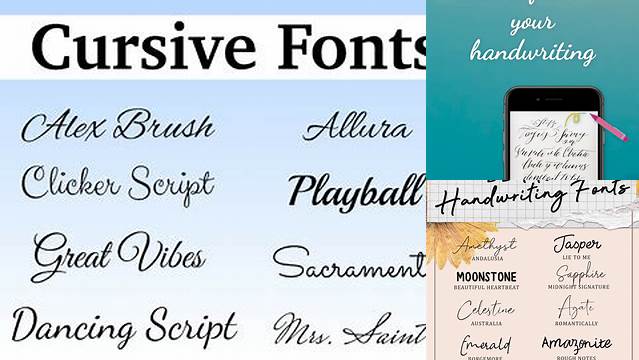
Free Cursive Fonts For IPhone: Download Now!
Hey guys! Ever wanted to spice up your iPhone with some beautiful, flowing cursive fonts? You're in the right place! In this article, we're diving deep into the world of free cursive fonts for iPhones. We'll explore everything from where to find them, how to install them, and even some creative ways to use them. So, grab your iPhone and let's get started!
1. Best Cursive Fonts for iPhone
When it comes to the best cursive fonts for iPhone, you've got a ton of options. But how do you sift through the noise and find the real gems? Well, that's what we're here for! We'll be looking at a variety of fonts, considering factors like readability, style, and overall aesthetic appeal. Think elegant scripts, playful swirls, and everything in between. Whether you're crafting the perfect Instagram story or just want your notes to look a little fancier, the right cursive font can make all the difference. Let's explore some top contenders and see which ones tickle your fancy. Remember, the best font is subjective, so it's all about finding what you love. We'll also touch on resources where you can preview these fonts before downloading, ensuring you get the perfect match for your needs. From classic calligraphy-inspired fonts to modern, edgy scripts, there's a cursive font out there for everyone. So, let's dive into the captivating world of iPhone typography!
4. Using Cursive Fonts in Apps
So, you've got your swanky new cursive fonts installed – awesome! But now, how do you actually use them? This section is all about putting those fonts to work in your favorite apps. We'll explore how to use cursive fonts in various applications, from social media platforms like Instagram and TikTok to productivity tools like Pages and Notes. We'll look at specific app functionalities and how to access your installed fonts within them. Think personalized captions, elegant document headers, and eye-catching social media graphics. We'll also touch on font pairing – how to combine your cursive font with other fonts for a balanced and visually appealing design. It's all about creating a cohesive look that showcases your unique style. We'll even delve into some creative hacks for apps that don't natively support custom fonts, helping you push the boundaries of iPhone typography. Let’s get those creative juices flowing and unleash the power of cursive across your digital world!
5. Cursive Fonts for Instagram
Instagram, the land of visual storytelling! What better place to showcase your amazing cursive fonts? This section is dedicated to all things Instagram and cursive. We'll explore how to use cursive fonts to create captivating captions, Stories, and even profile bios. Think elegant quotes, personalized shout-outs, and a touch of calligraphic charm. We'll dive into specific apps and tools that make it easy to add cursive text to your Instagram content. We’ll also talk about the psychology of fonts – how different cursive styles can evoke different emotions and moods. Want to project sophistication? A classic script might be your go-to. Feeling playful? A whimsical, swirly font could be perfect. We'll help you choose the right cursive font to match your brand and aesthetic. We’ll also cover best practices for readability, ensuring your followers can actually read your message. Let's make your Instagram feed a masterpiece of typography!
6. Cursive Fonts for Notes App
The iPhone's Notes app – it's more than just a digital notepad! It's a place for brainstorming, journaling, and capturing your thoughts. And what better way to personalize your notes than with a beautiful cursive font? In this section, we'll explore how to use cursive fonts in the Notes app to add a touch of elegance and personality. We’ll discuss methods for changing the font system-wide, if possible, or using creative workarounds to incorporate cursive text within your notes. Think handwritten-style headers, stylish bullet points, and an overall more visually appealing note-taking experience. We'll also touch on the practical aspects of using cursive in notes – ensuring readability and choosing fonts that are easy on the eyes for longer writing sessions. We’ll look at how cursive can enhance organization and make your notes feel more uniquely you. Let's transform your digital scribbles into works of art!
7. Cursive Fonts for Social Media
Social media is all about making a statement, and your choice of font plays a huge role in that! This section is your guide to using cursive fonts for social media to create eye-catching posts and profiles. We'll cover various platforms, from Instagram and Twitter to Facebook and TikTok, exploring how to incorporate cursive fonts into your content. We'll discuss font pairing, color palettes, and other design elements that complement cursive typography. Think branded graphics, shareable quotes, and posts that truly stand out from the crowd. We’ll also delve into the nuances of each platform, considering character limits, font display, and audience demographics. We'll help you choose the perfect cursive font to connect with your followers and express your unique voice across the social media landscape. Let's amplify your social media presence with the power of cursive!
8. Elegant Cursive Fonts
Sometimes, you just want a touch of sophistication, right? That's where elegant cursive fonts come in. This section is a curated showcase of the most refined and graceful cursive fonts for your iPhone. Think sweeping strokes, delicate lines, and a timeless appeal. We'll explore fonts inspired by classic calligraphy, perfect for adding a touch of class to invitations, announcements, or any project that calls for a little extra panache. We'll discuss the key characteristics of elegant cursive fonts, from their spacing and letterforms to their overall visual impact. We’ll also provide examples of how to use these fonts effectively, whether it's in branding materials, website design, or personal projects. Let's elevate your typography with the timeless beauty of elegant cursive!
9. Modern Cursive Fonts
Cursive doesn't always have to be traditional! This section is all about modern cursive fonts – fresh, contemporary takes on the classic script style. Think bold lines, unique letterforms, and a touch of edginess. We'll explore fonts that blend the fluidity of cursive with a modern aesthetic, perfect for adding a touch of personality to your designs. We'll discuss how to use modern cursive fonts in logos, website headers, and other design elements where you want to make a statement. We’ll also cover font pairing, suggesting complementary fonts that work well with modern cursive styles. Let's push the boundaries of typography and explore the exciting world of contemporary cursive!
10. Calligraphy Fonts for iPhone
Want to capture the artistry of hand-lettering on your iPhone? This section is your guide to calligraphy fonts for iPhone. We'll explore fonts that mimic the beautiful strokes of traditional calligraphy, from elegant Copperplate to bold Spencerian. We'll discuss the history and nuances of calligraphy, and how these styles translate to the digital realm. We'll also cover how to use calligraphy fonts to add a touch of artistry to your projects, whether it's creating custom invitations or designing stunning social media graphics. We’ll provide tips on choosing the right calligraphy font for your needs, considering factors like readability and overall aesthetic. Let's bring the beauty of calligraphy to your fingertips!
11. Script Fonts for iPhone
Script fonts – they're the broader family that cursive belongs to! This section expands our horizons, exploring the diverse world of script fonts for iPhone. We'll look at different script styles, from formal scripts to casual brush scripts, and how to use them effectively in your designs. We'll discuss the characteristics of each style, from their weight and slant to their overall personality. We’ll also provide examples of how to pair script fonts with other fonts for a balanced and visually appealing look. Let's dive into the world of script typography and discover the perfect font for your next project!
12. Handwritten Fonts for iPhone
There's something so personal and authentic about handwritten text. This section is dedicated to handwritten fonts for iPhone – fonts that capture the unique character of handwriting. We'll explore different handwritten styles, from neat and legible to messy and expressive, and how to use them to add a human touch to your designs. We'll discuss the nuances of handwritten typography, considering factors like texture, line weight, and letter spacing. We'll also cover how to choose the right handwritten font for your project, ensuring it aligns with your overall aesthetic and message. Let's embrace the imperfect beauty of handwritten fonts!
13. Free Fonts for iPhone
Free is good, right? This section is all about the treasure trove of free fonts for iPhone. We'll explore the best resources for finding high-quality free fonts, from font websites to app stores. We'll discuss the importance of checking font licenses, ensuring you're using the fonts legally. We'll also cover tips for identifying well-designed free fonts, avoiding the pixelated or poorly crafted options. We’ll explore different types of free fonts, including cursive, script, and other styles. Let's unlock the world of free typography!
14. Stylish Cursive Fonts
Style is in the eye of the beholder, but some cursive fonts just ooze it! This section is a curated collection of stylish cursive fonts for your iPhone, fonts that are sure to make a statement. We'll explore fonts with unique letterforms, bold strokes, and a touch of personality. We'll discuss how to use these fonts to create eye-catching designs, from logos and branding materials to social media graphics. We’ll also provide examples of font pairings that complement stylish cursive fonts. Let's infuse your projects with style and sophistication!
15. Unique Cursive Fonts
Tired of the same old fonts? This section is your passport to the world of unique cursive fonts. We'll explore fonts that break the mold, with unconventional letterforms and unexpected flourishes. We'll discuss how to use these fonts to make your designs stand out from the crowd. We’ll also cover the importance of readability, ensuring your unique font still conveys your message clearly. Let's embrace the unconventional and explore the world of truly unique cursive!
16. Fonts for iPhone Text Messages
Spice up your texts! This section is all about fonts for iPhone text messages. We'll explore how to change the font in your messages, adding a touch of personality to your conversations. We'll discuss different methods for changing fonts, from using third-party apps to exploring accessibility settings. We’ll also cover the limitations of font customization in text messages, and alternative ways to express yourself through typography. Let's make your text messages a little more you!
17. Fonts for iPhone Keyboard
Want a personalized keyboard experience? This section explores fonts for iPhone keyboard. We'll discuss how to customize your keyboard with different fonts, adding a unique touch to your typing. We'll explore keyboard apps that offer font customization options, as well as alternative methods for changing the look of your keyboard. Let's personalize your typing experience!
18. Fancy Cursive Fonts
Sometimes, you just want to add a little fancy to your designs! This section is dedicated to fancy cursive fonts for iPhone – fonts with elaborate flourishes, intricate details, and a touch of glamour. We'll explore fonts perfect for special occasions, elegant invitations, and any project that calls for a little extra pizzazz. We'll discuss how to use these fonts effectively, ensuring they don't overwhelm your design. Let's add a touch of fancy to your typography!
19. Downloading Fonts on iPhone
Downloading fonts might seem tricky, but it's totally doable! This section is your comprehensive guide to downloading fonts on iPhone. We'll cover different methods for downloading fonts, from using font installation apps to downloading font files directly. We'll discuss the importance of downloading fonts from reputable sources, ensuring you avoid malware. We’ll also troubleshoot common downloading issues. Let's demystify the font downloading process!
20. Font Apps for iPhone
There's an app for everything, and fonts are no exception! This section is a roundup of the best font apps for iPhone. We'll explore apps that allow you to browse, download, and install fonts directly on your device. We'll discuss the features and benefits of each app, helping you choose the right one for your needs. Let's explore the world of font apps!
21. Cursive Text Generators
Want to quickly generate cursive text without installing a font? This section is your guide to cursive text generators. We'll explore online tools that allow you to type text and convert it to cursive styles. We'll discuss the pros and cons of using text generators, and how to use them effectively for social media and other projects. Let's generate some cursive magic!
22. Changing Fonts on iPhone
Want to change the overall look of your iPhone's text? This section explores changing fonts on iPhone, system-wide. We'll discuss the limitations of system-wide font changes, and alternative ways to customize your typography. We'll explore accessibility settings and third-party apps that might offer font customization options. Let's personalize your iPhone's text!
23. Free Cursive Fonts for iOS
iOS and cursive fonts – a perfect match! This section focuses specifically on free cursive fonts for iOS, ensuring compatibility and optimal performance on your Apple devices. We'll explore resources for finding iOS-friendly cursive fonts, and discuss any specific installation considerations. Let's get those cursive fonts looking gorgeous on your iOS devices!
24. Best Font Apps for iOS
Just like iPhones, iPads love beautiful fonts too! This section is a guide to the best font apps for iOS, covering both iPhone and iPad. We'll explore apps that offer a wide range of fonts, easy installation, and seamless integration with your favorite apps. Let's discover the best font apps for your iOS ecosystem!
25. Using Custom Fonts on iPhone
Ready to take your typography to the next level? This section delves into using custom fonts on iPhone. We'll cover the process of installing and using custom fonts, ensuring compatibility and optimal performance. We'll also discuss best practices for choosing and using custom fonts effectively. Let's unleash the power of custom typography!
26. Font Management on iPhone
Got a font collection that's getting a little chaotic? This section is your guide to font management on iPhone. We'll explore methods for organizing, previewing, and deleting fonts on your device. We'll also discuss best practices for keeping your font library tidy and efficient. Let's get your fonts organized!
27. Cursive Font Styles
Cursive isn't just one thing – it's a family of styles! This section explores different cursive font styles, from classic scripts to modern takes. We'll discuss the characteristics of each style, and how to use them effectively in your designs. Let's dive into the diverse world of cursive styles!
28. Typography Tips for iPhone
Beyond just fonts, there's a whole world of typography to explore! This section offers typography tips for iPhone, covering everything from font pairing to spacing and readability. We'll discuss best practices for creating visually appealing and effective designs on your iPhone. Let's elevate your typography game!
29. Troubleshooting Font Issues on iPhone
Fonts not showing up? Having installation problems? This section is your troubleshooting guide for font issues on iPhone. We'll cover common font problems and provide solutions to get your fonts working smoothly. Let's fix those font hiccups!
30. Creative Uses for Cursive Fonts
Let your imagination run wild! This section explores creative uses for cursive fonts, from personalized invitations to stunning social media graphics. We'll discuss how to use cursive fonts to add a touch of personality and style to your projects. Let's get creative with cursive! So there you have it, guys! Everything you need to know about free cursive fonts for iPhone. Now go forth and create something beautiful!